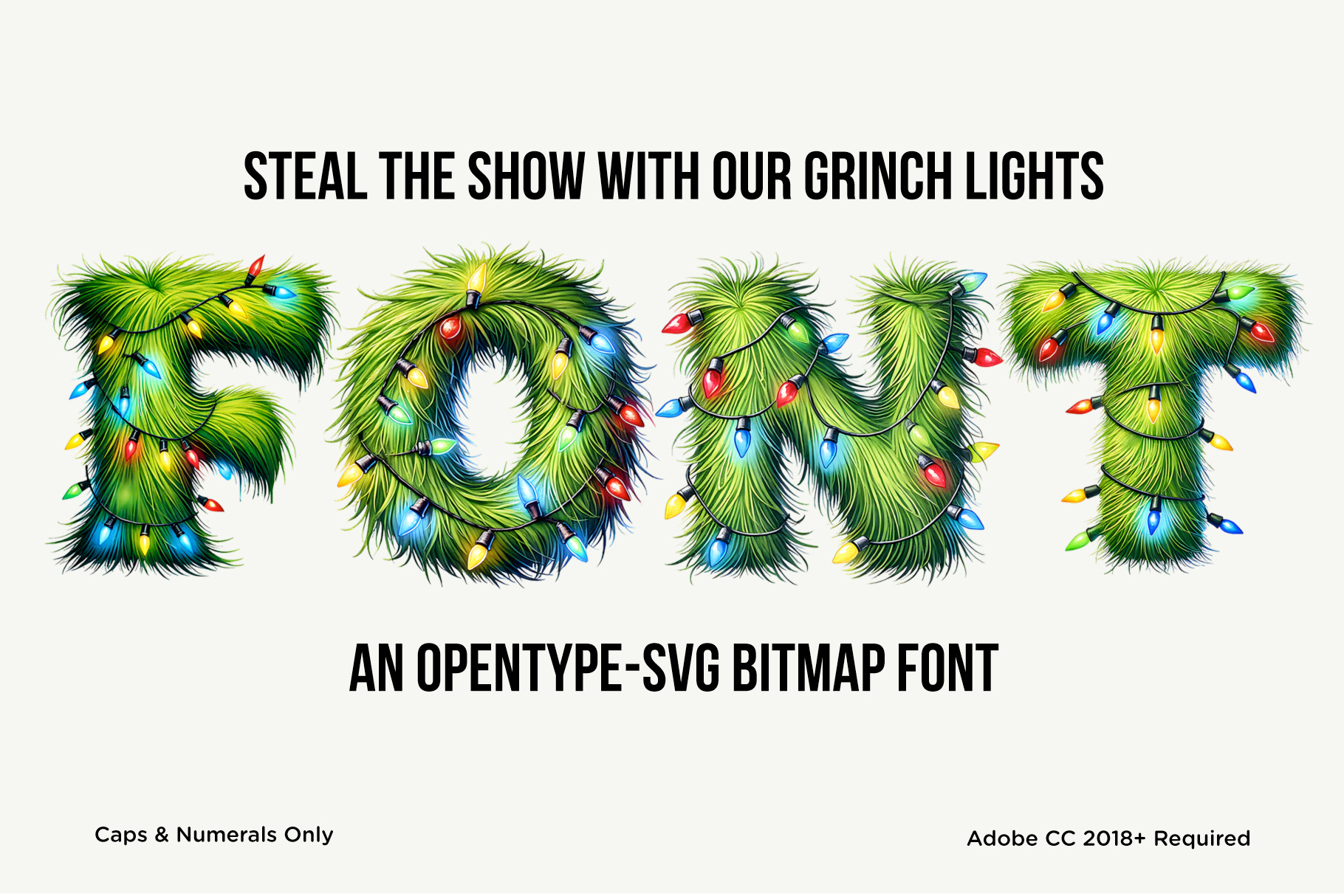
Grinch Lights 3D Font
Grinch Lights is a festive 3D display font made of fuzzy green fur tangled with glowing holiday lights. Each letter shines with a playful mix of color and texture, combining cozy Christmas warmth with mischievous holiday cheer. Perfect for cards, posters, packaging, social posts, or any project that needs a bright, bold, and joyful seasonal touch.
This OpenType-SVG bitmap font includes uppercase letters and numerals only. Each glyph features a high-resolution fur and light texture baked directly into the font file, creating a photorealistic, handcrafted effect that’s perfect for large display use such as titles, signage, or apparel design.